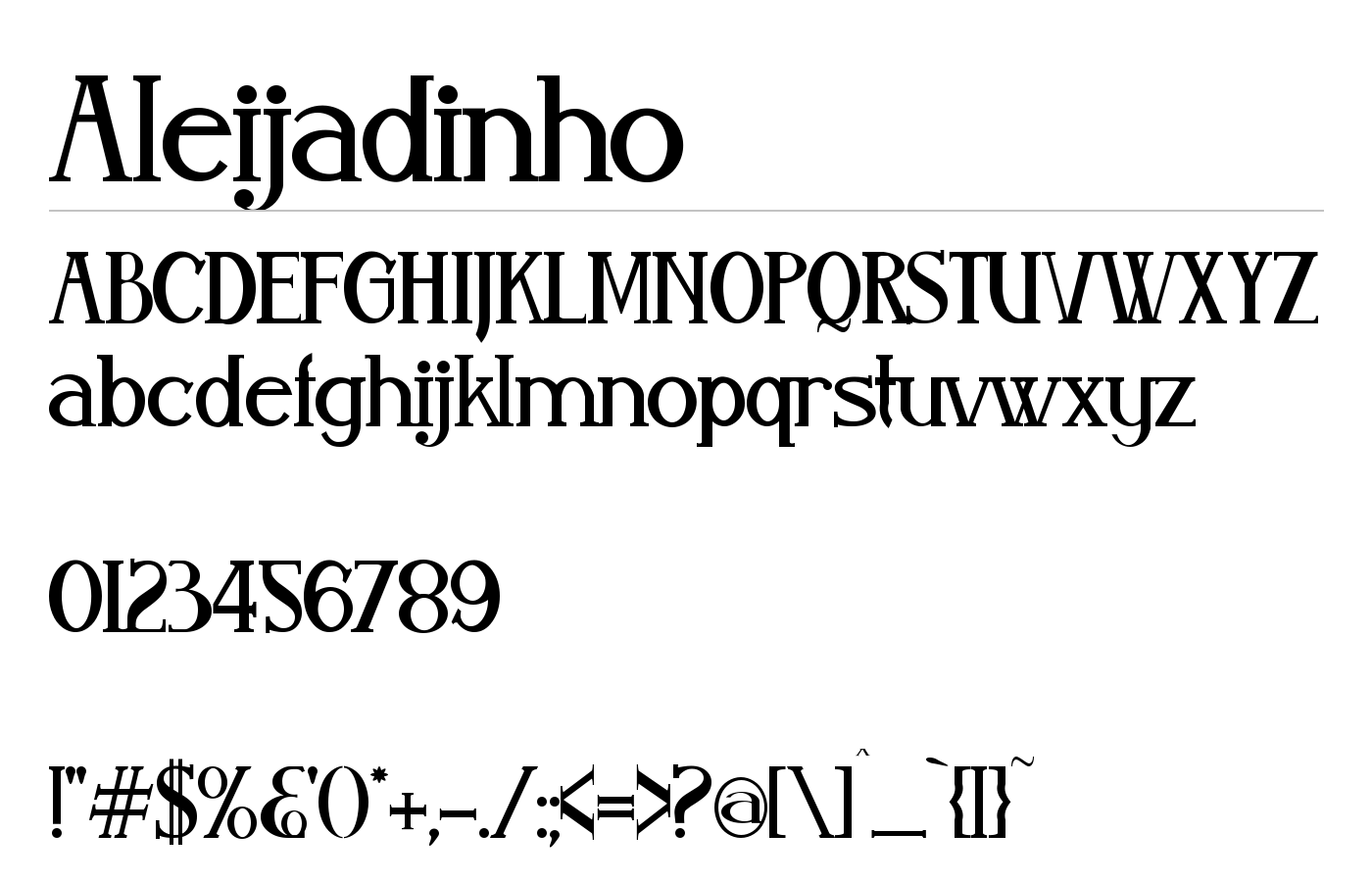
Aleijadinho is a distinctive serif typeface with a refined, elegant character, featuring high contrast between thick and thin strokes and sharp, bracketed serifs that lend a timeless, classic feel. Its tall x-height and narrow letterforms create a sophisticated, slightly condensed appearance, making it ideal for upscale editorial designs, fashion branding, and luxury packaging where a touch of tradition meets modern clarity. This font works especially well in headlines and logos that seek to convey both sophistication and artistic flair.
Aleijadinho Font
About Aleijadinho Font
| Font family | Aleijadinho Font |